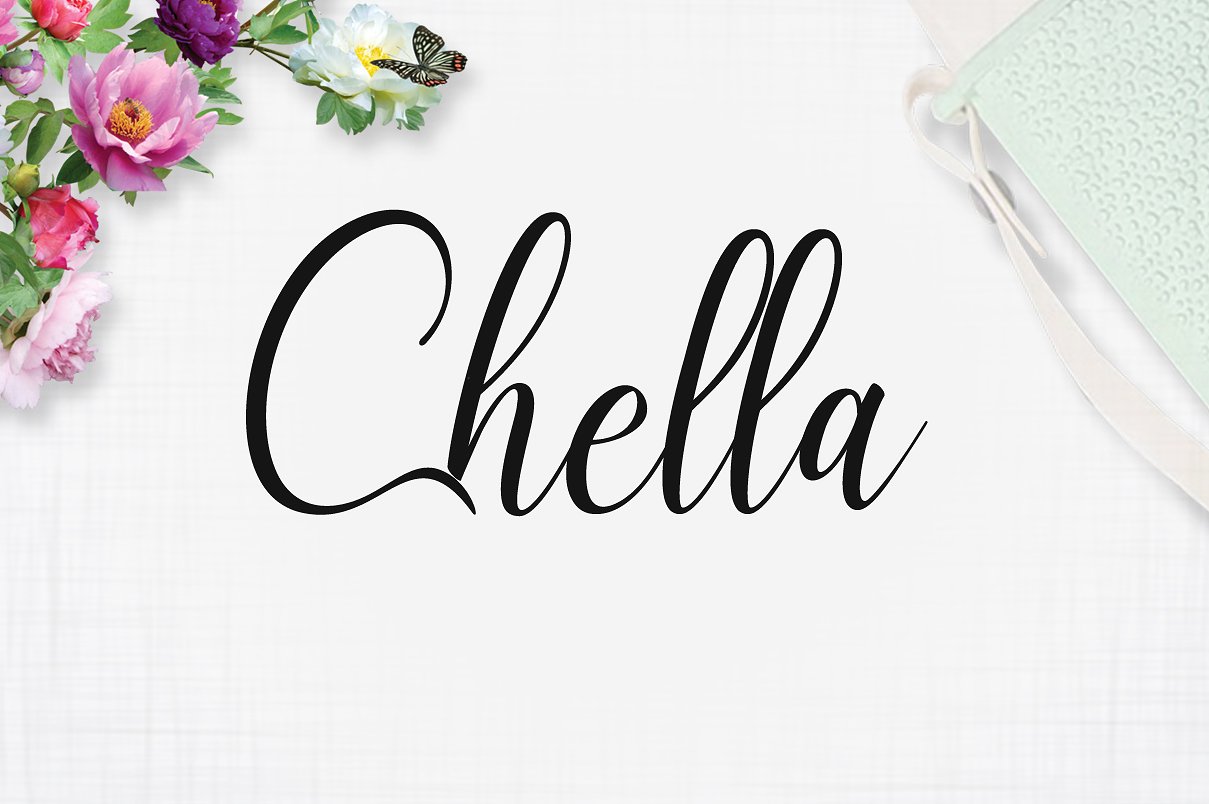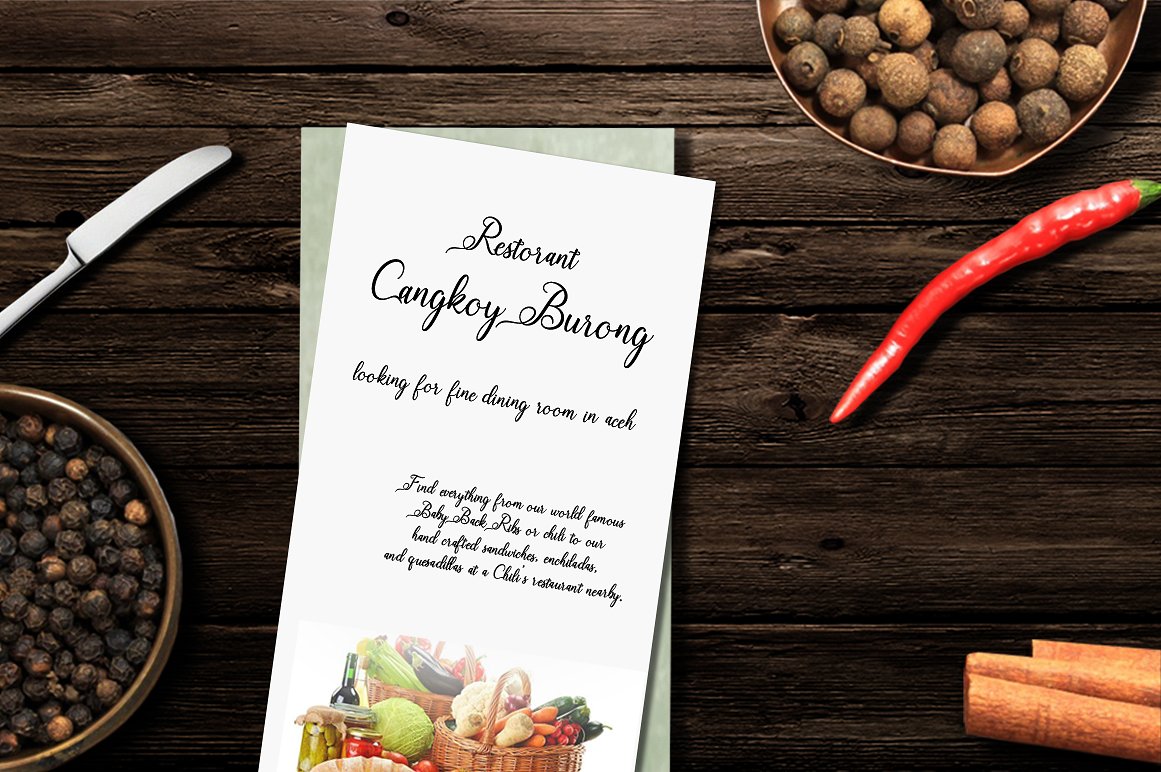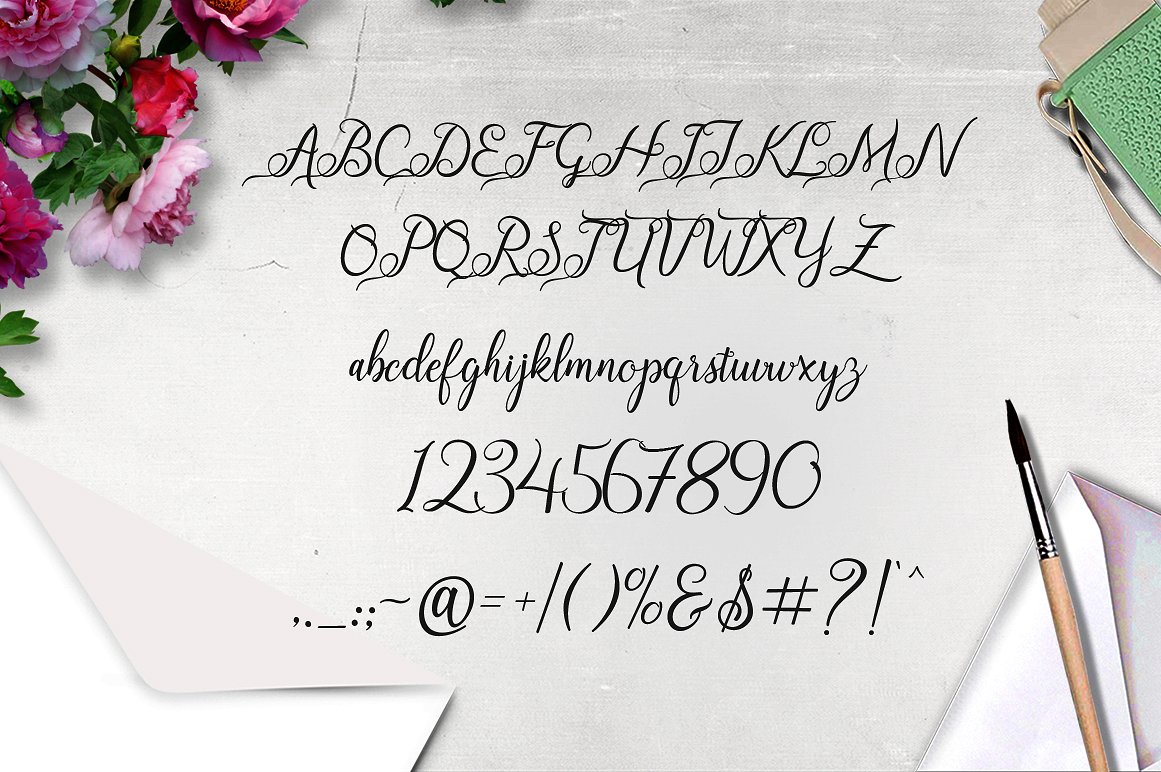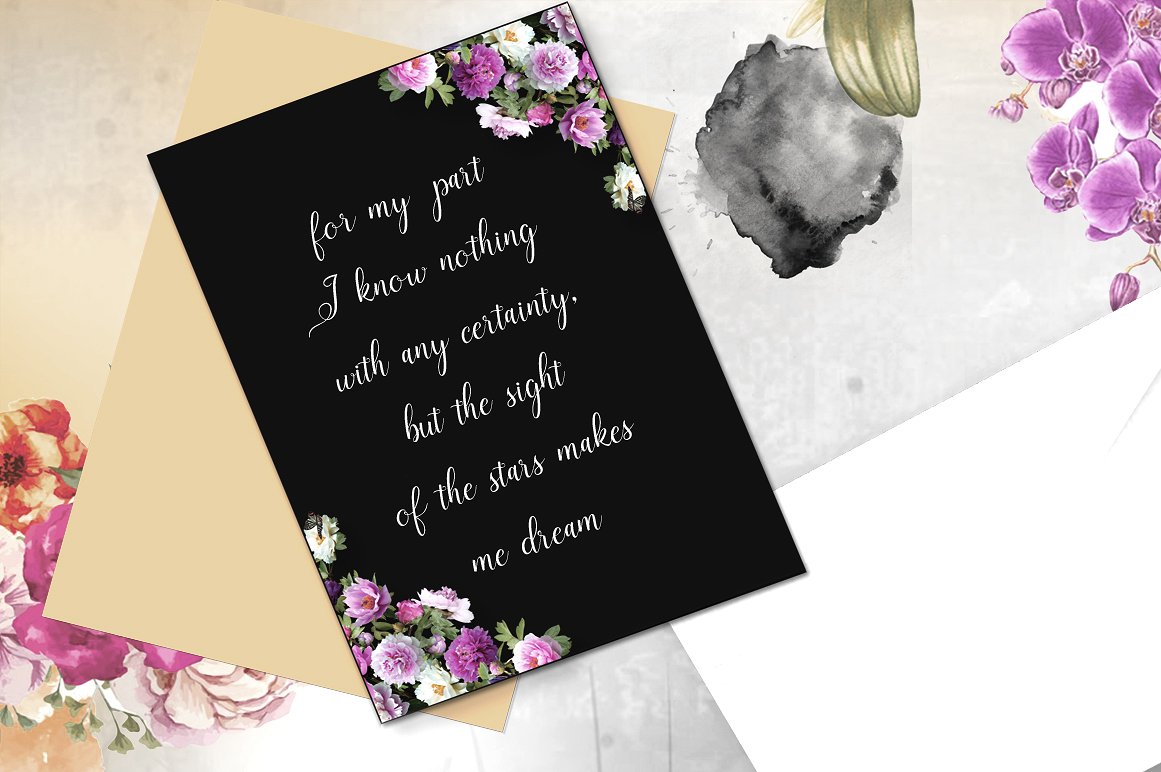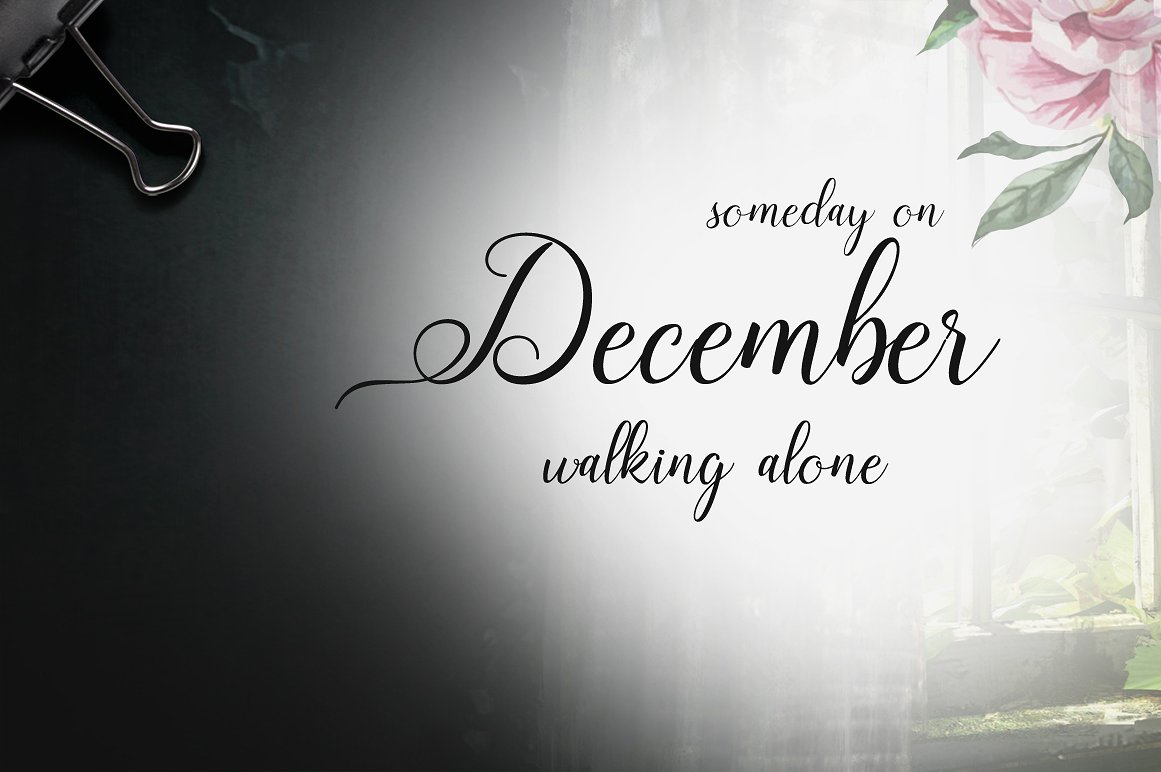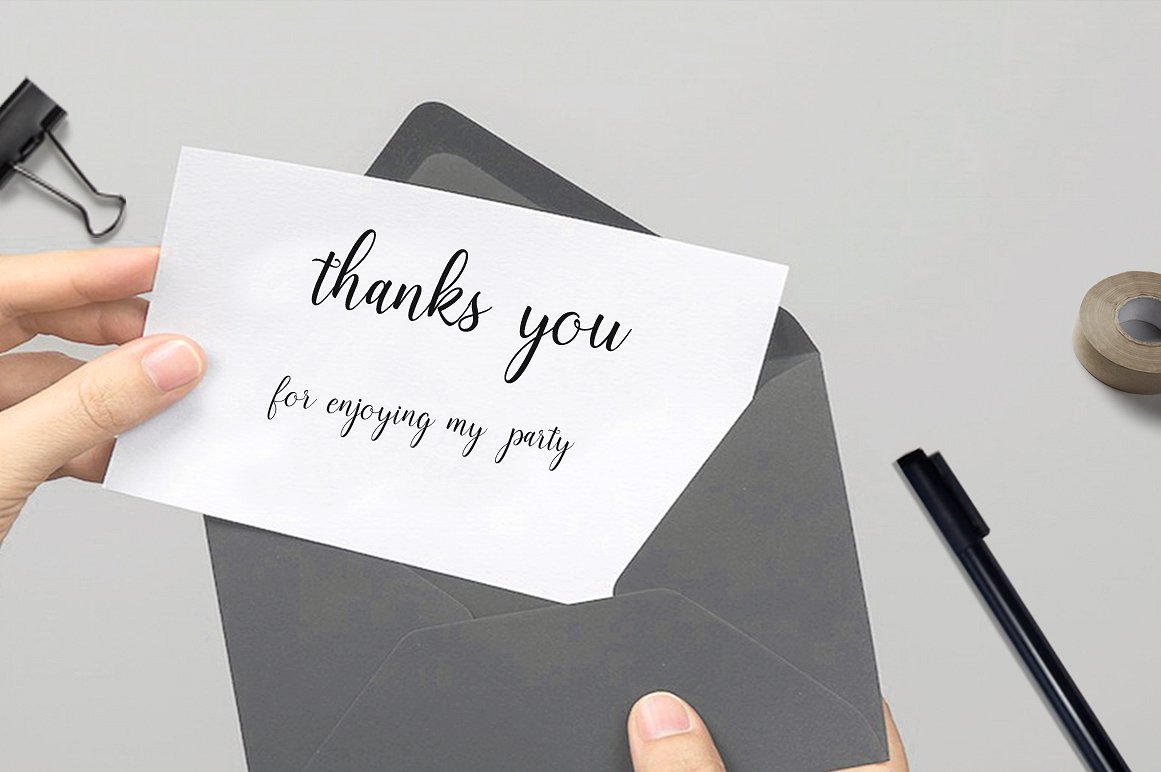
Chella Font
About Chella Font
Chella is a modern script font that is crafted with beautiful letters for a purposeful vibe. This calligraphic style is suited to a wide range of designs that need an added touch of elegance.